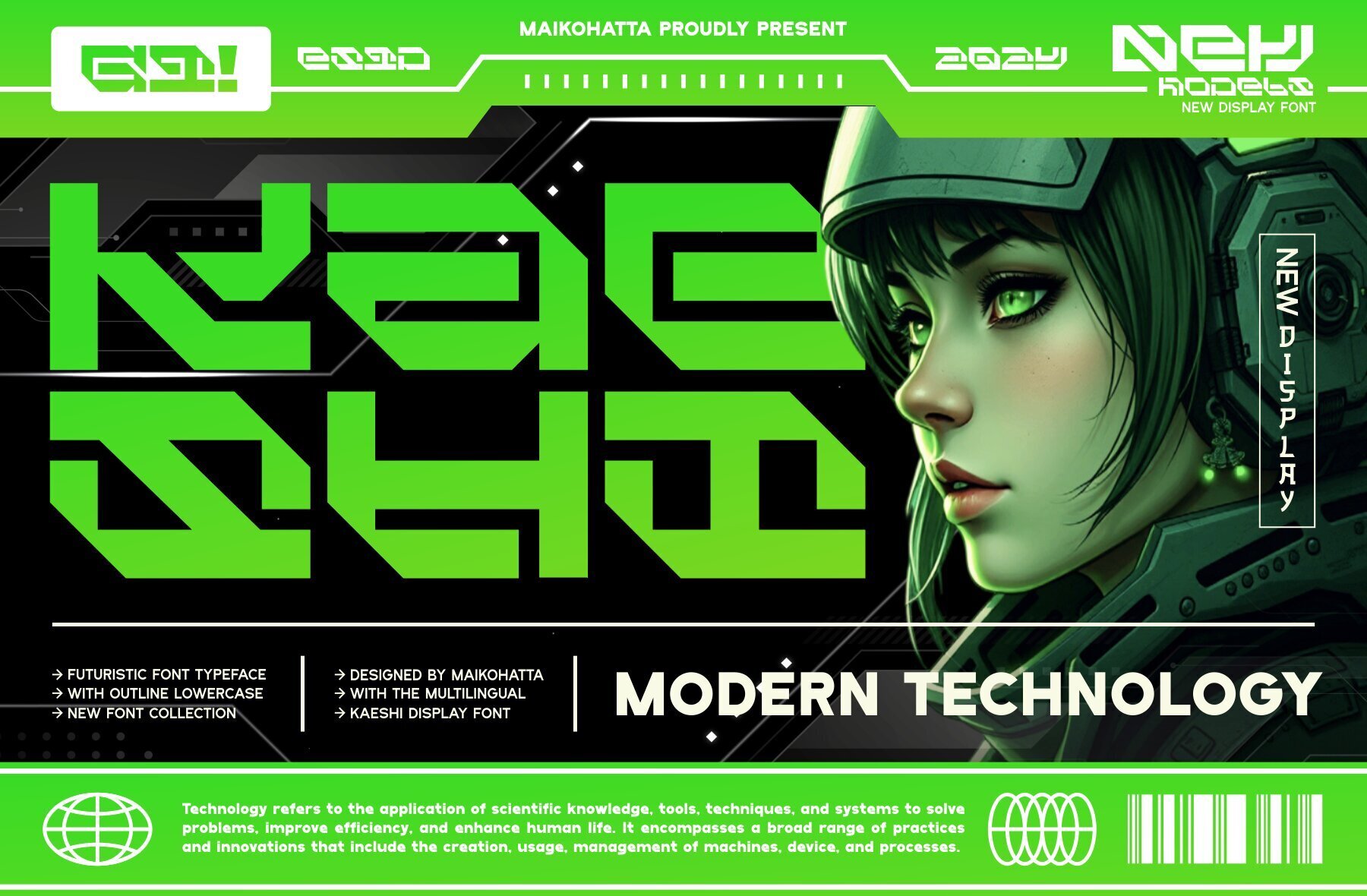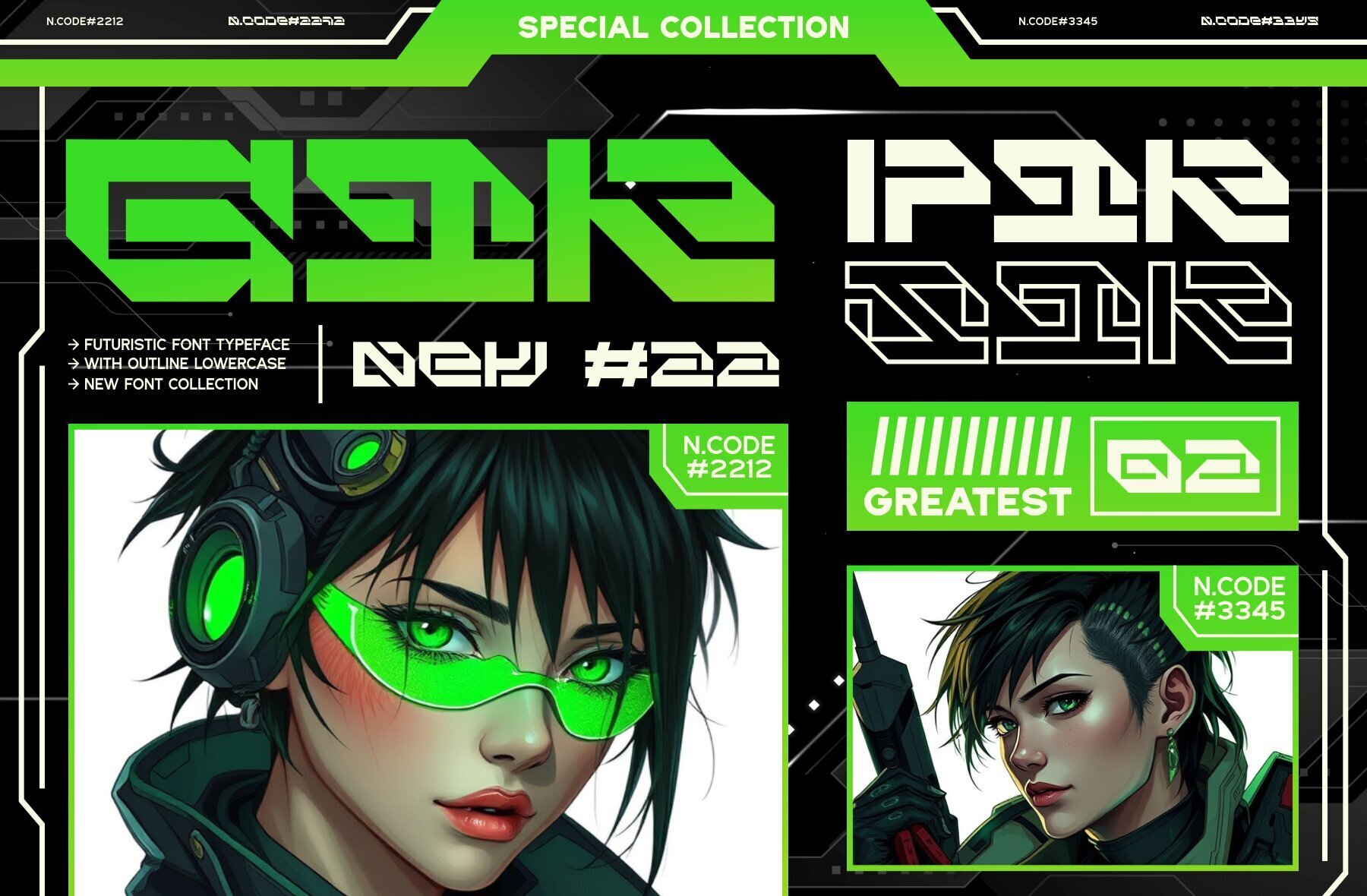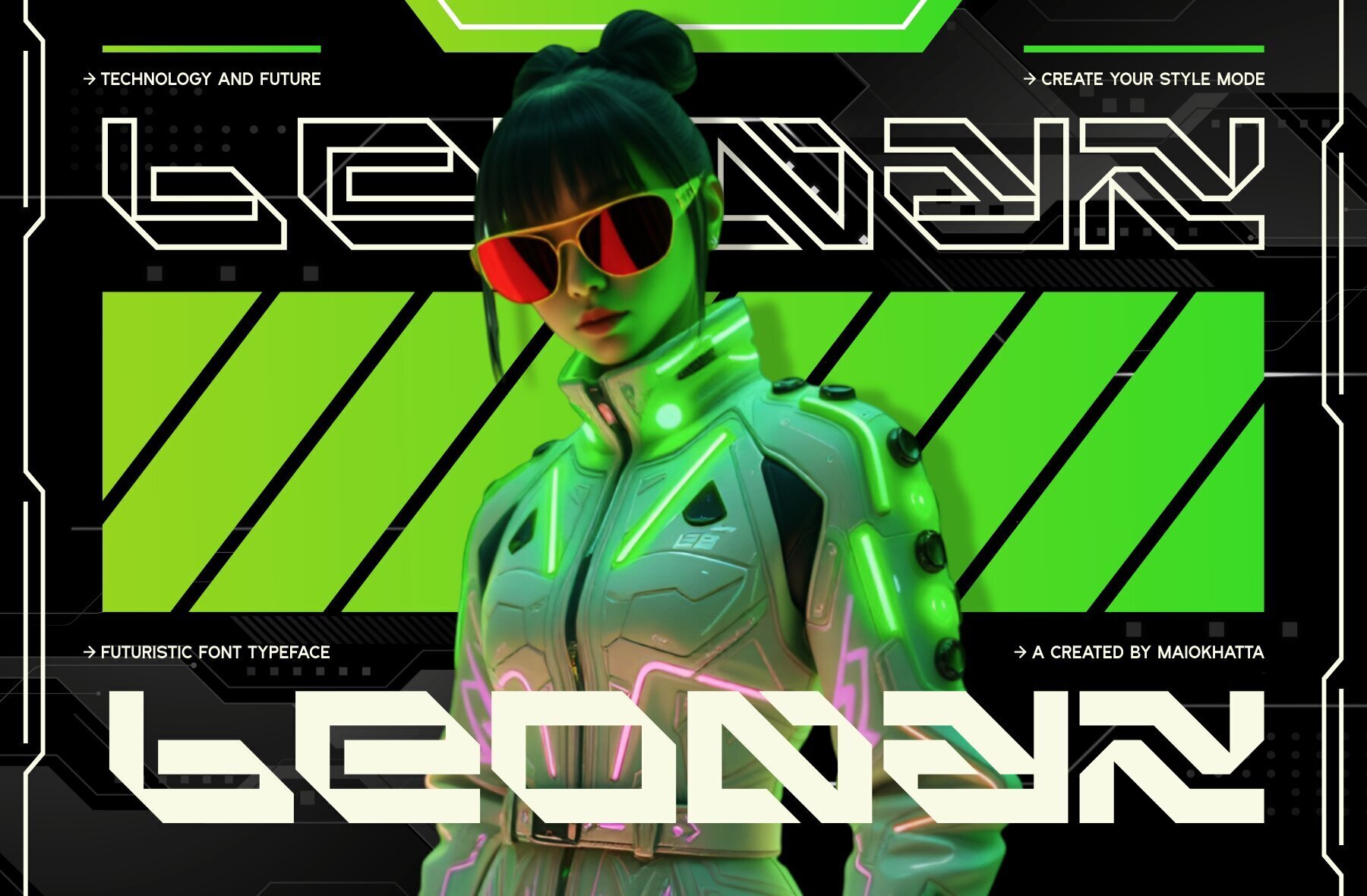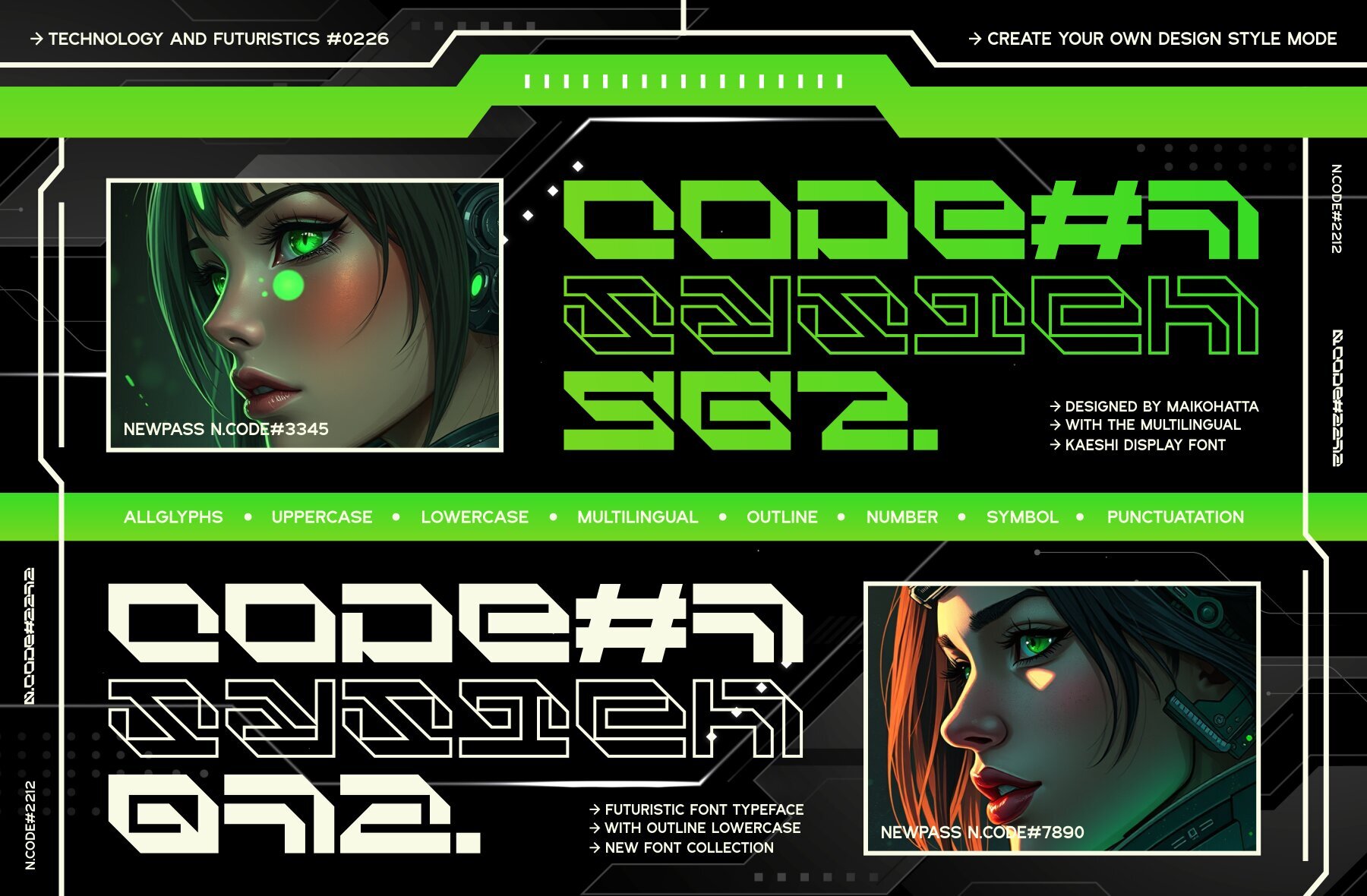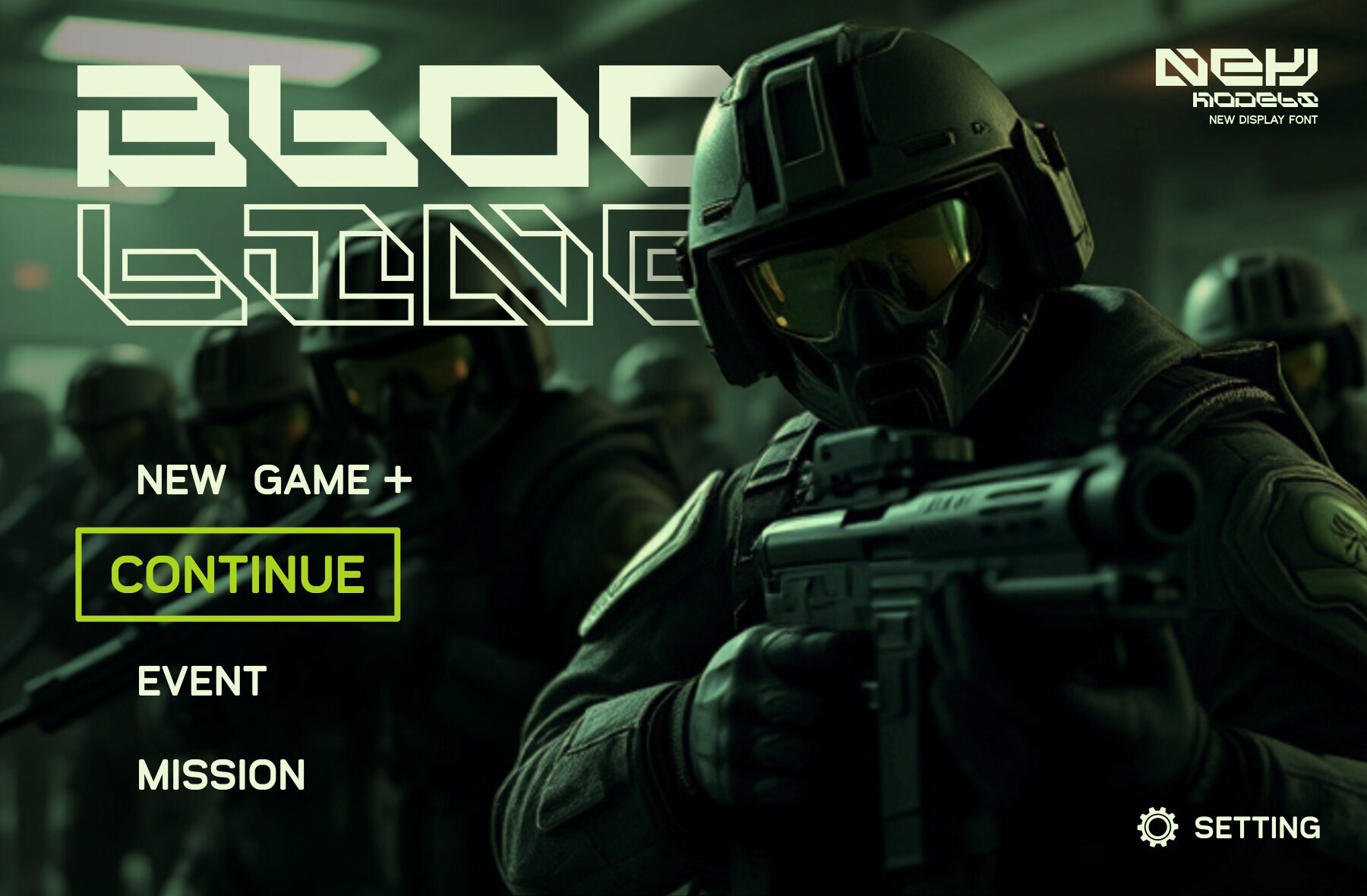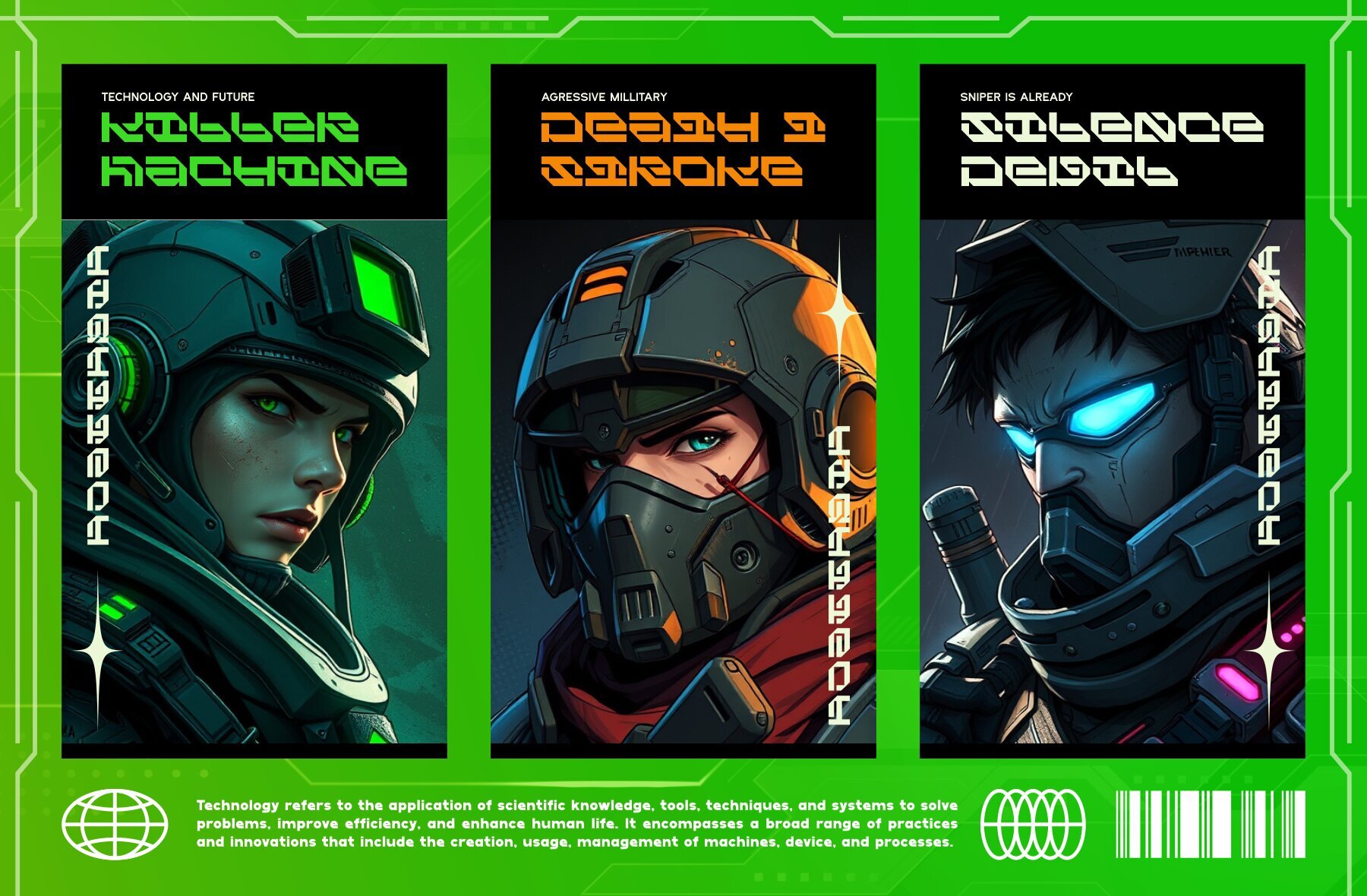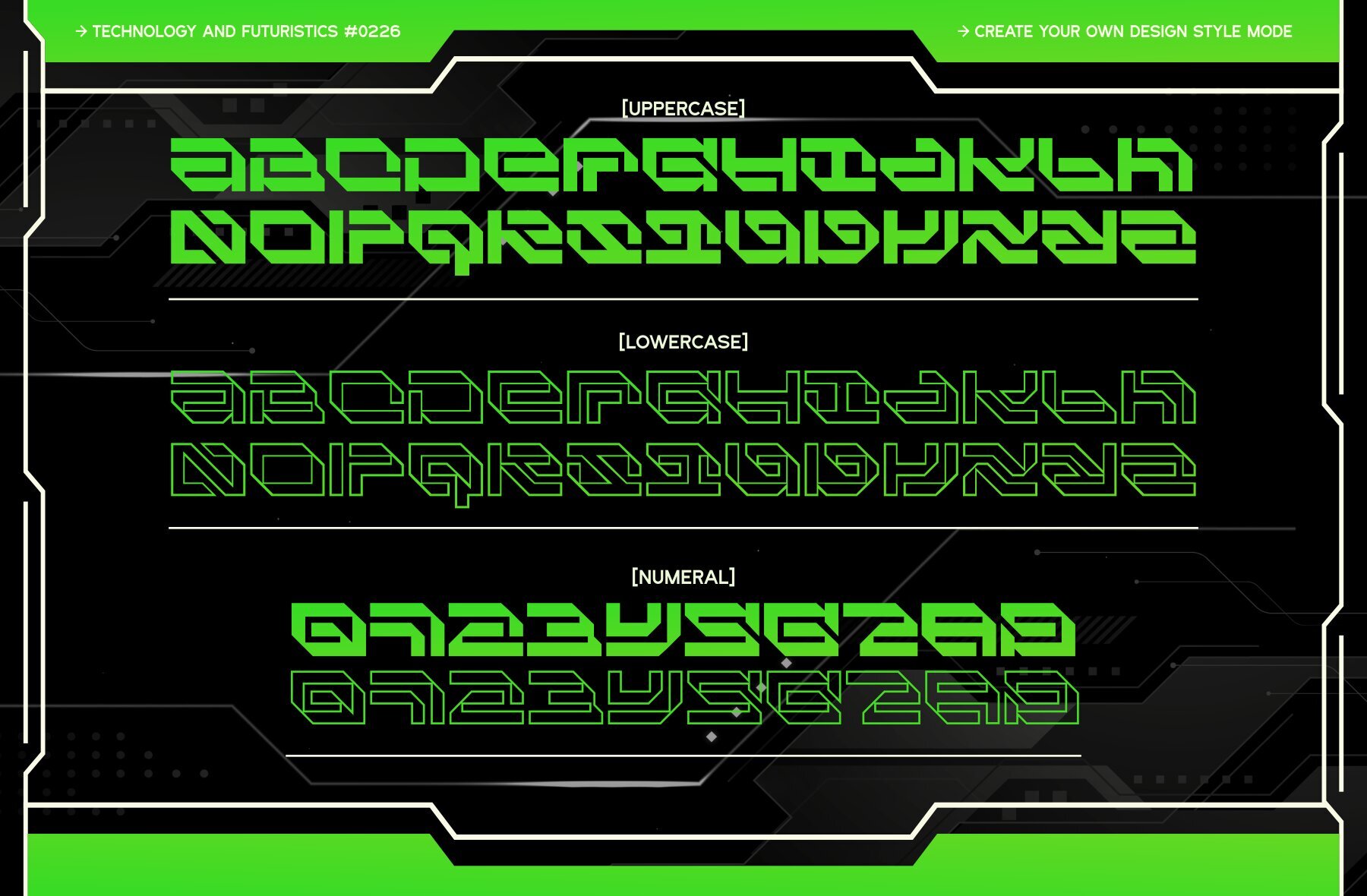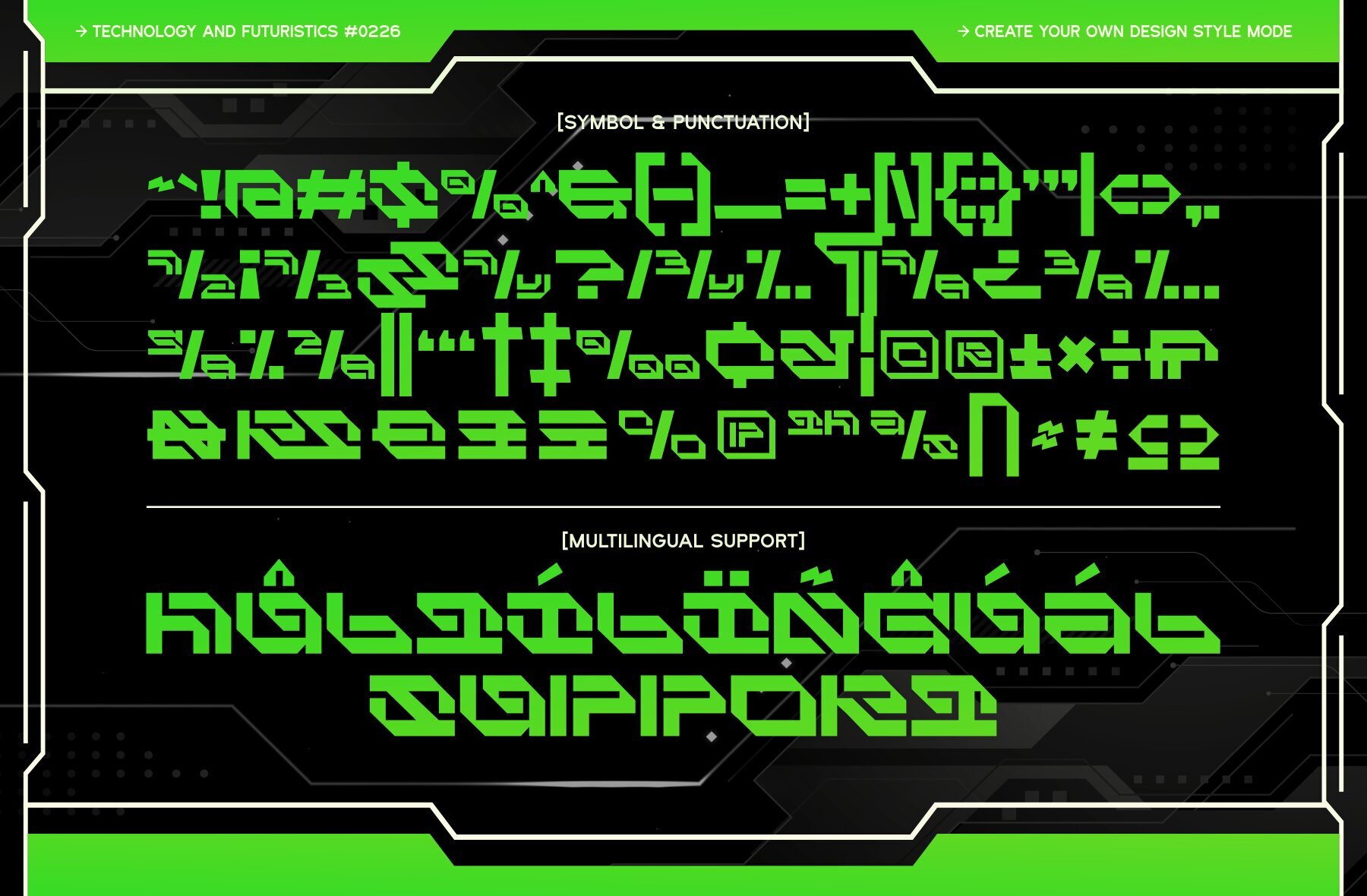
Kaeshi Font
KAESHI
Kaeshi is a modern techno typeface designed to capture the essence of futuristic design and technological advancement. Characterized by sharp lines and geometric letter shapes, it brings innovation and energy to any project. Perfectly suited for designs connected to technology, robotics, and science, Kaeshi seamlessly integrates into a modern lifestyle aesthetic, making it an excellent choice for logos, website designs, and posters that need a futuristic flair.
Key features of Kaeshi include uppercase and lowercase letters, multilingual support, and alternate characters. These features enhance its versatility, allowing you to customize your designs to fit a wide range of creative endeavors. Whether crafting a sleek website interface or designing a high-tech logo, Kaeshi supports your vision with its forward-thinking aesthetics.